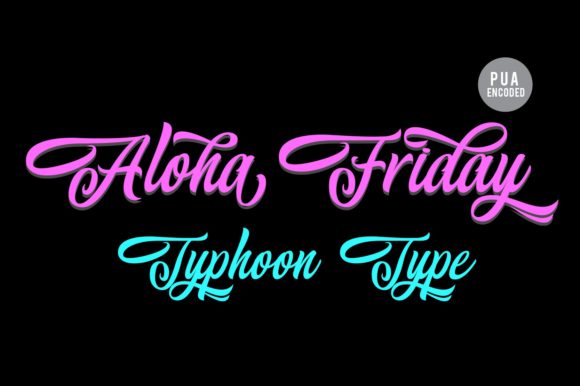
The Ultimate Guide to Aloha Friday Font: Adding a Touch of Playfulness to Your Designs
I’ll never forget the time I was working on a project for a client who wanted a fun and quirky vibe. I was struggling to find the perfect font to capture that laid-back, tropical feel. That’s when I stumbled upon Aloha Friday Font. It was love at first sight! The playful and dynamic script instantly transported me to a Hawaiian beach, and I knew I had found the perfect fit for my project.
As a designer, crafty person, or creative hobbyist, you’re probably always on the lookout for fonts that can add a unique touch to your work. That’s where Aloha Friday Font comes in – a beautiful, one-of-a-kind script that’s sure to inspire your creativity.
Aloha Friday Font: An Honest Review
So, what makes Aloha Friday Font so special? Let’s dive into the good stuff and a few quirks I’ve discovered while working with it.
- ✨ Playful and dynamic style: Aloha Friday Font has a unique, hand-drawn feel that’s perfect for adding a touch of whimsy to your designs.
- ✅ Ease of use: This font is incredibly easy to work with, even for those who are new to using script fonts.
- 💃 Versatility: Whether you’re designing a poster, a social media graphic, or a craft project, Aloha Friday Font is versatile enough to fit in seamlessly.
While Aloha Friday Font is an amazing addition to any design project, there are a few things to keep in mind:
- 🤔 Legibility at small sizes: Like many script fonts, Aloha Friday can get a bit tricky to read at very small sizes. It’s best used at larger sizes where its playful charm can shine.
- ⚠️ Limited use in formal designs: Due to its playful nature, Aloha Friday Font might not be the best fit for more formal or professional projects. Stick to fun and creative endeavors for the best results!
Exploring OpenType Features, Glyphs, and Stylistic Alternates
One of the exciting aspects of Aloha Friday Font is its support for OpenType features. This means you can access a variety of glyphs and stylistic alternates to add more personality to your text. For example:
- Swashes: Add elegant swashes to your text for a more decorative look.
- Stylistic Sets: Experiment with different stylistic sets to change the look of your text.
- Glyphs: Access additional glyphs to add more variety to your text.
Aloha Friday Font was inspired by the carefree spirit of a Hawaiian Friday. The designer, who loves tropical getaways and good vibes, aimed to capture the essence of a beachy, laid-back lifestyle in a font. The result is a playful, dynamic script that’s perfect for adding a touch of aloha to your designs.
A: Absolutely! Aloha Friday Font’s unique style makes it a great choice for branding projects that need a playful, tropical touch.
A: Yes, Aloha Friday Font supports OpenType features, including swashes, stylistic sets, and glyphs. This allows for more creative control over your text.